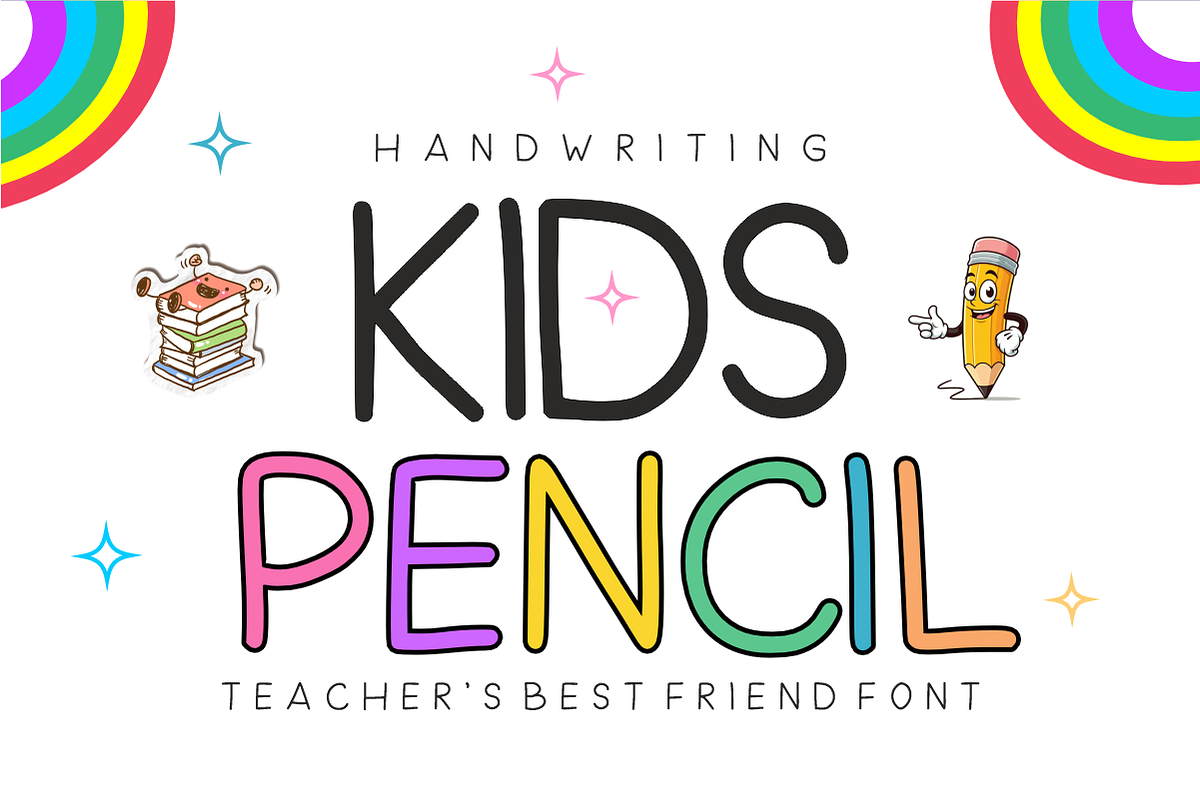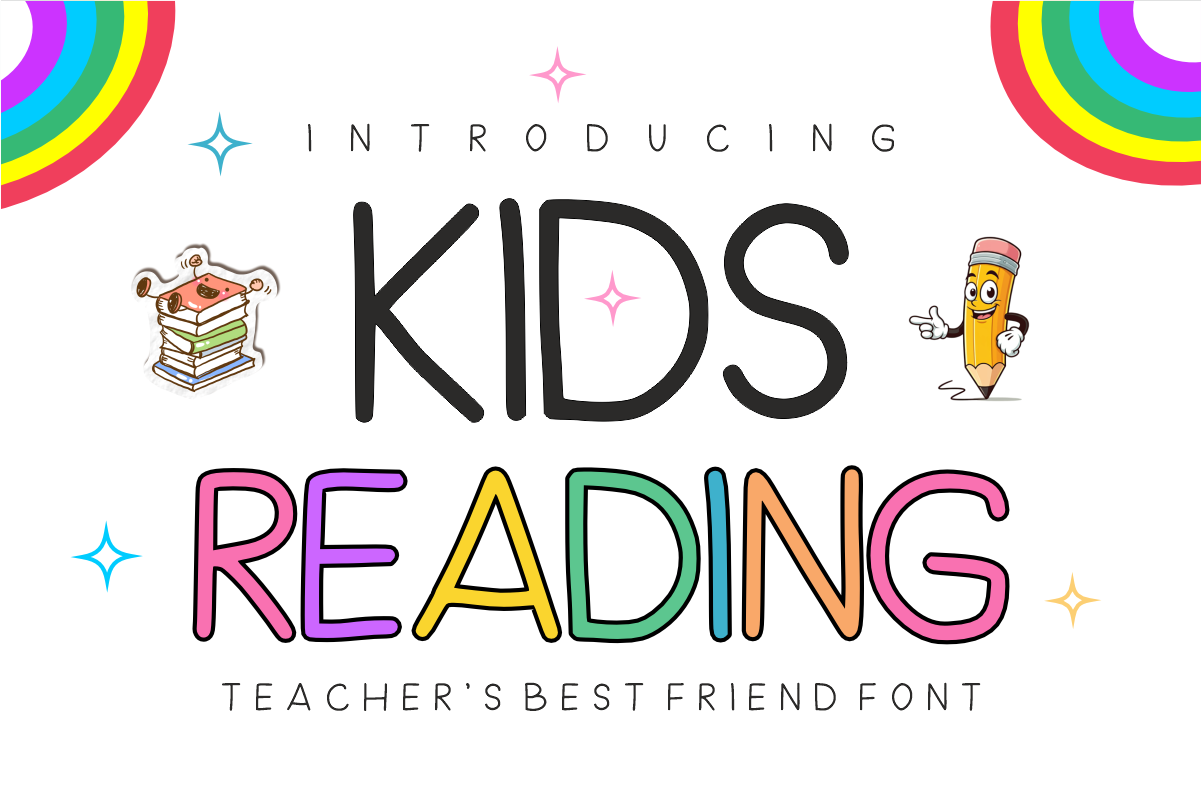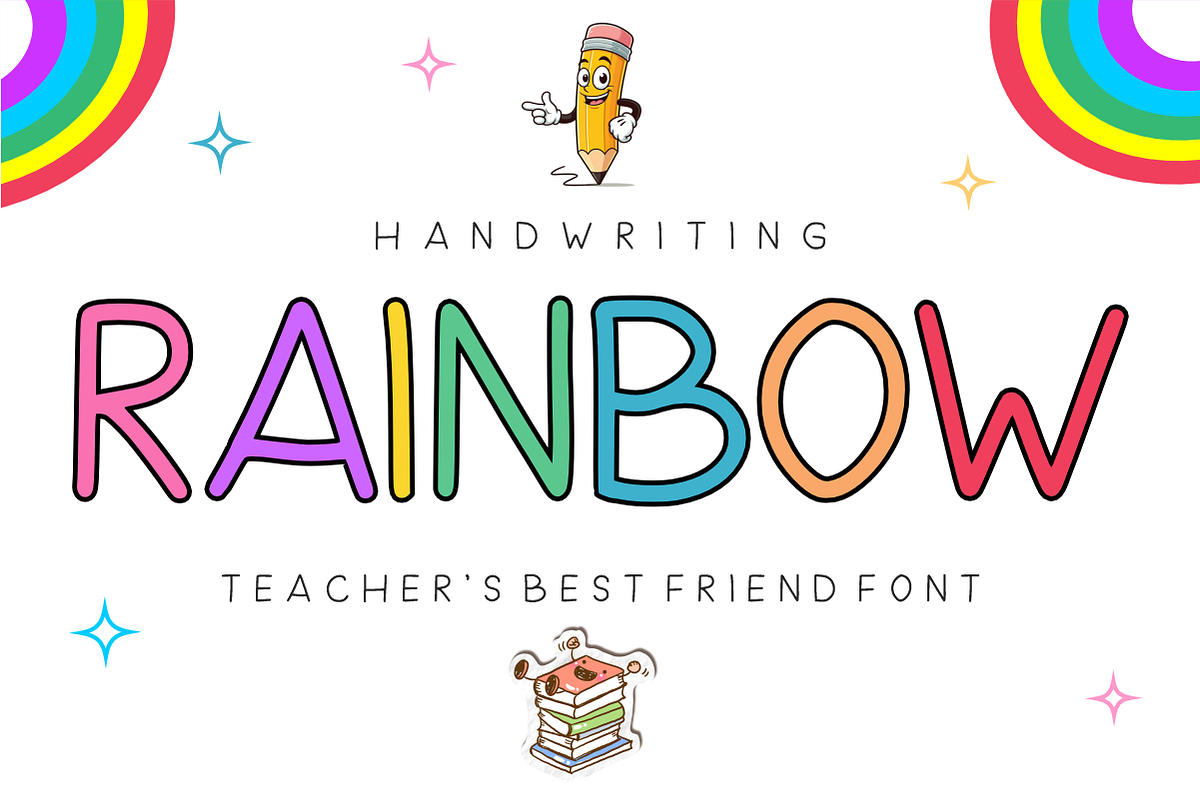
Kids Reading - School Teacher Font
Kids Reading is a tall, friendly, and clean handwritten display font crafted especially for educators, storytellers, and children's content creators. Featuring highly legible, handcrafted letterforms with a charming hand-drawn feel, this versatile font makes learning fun and reading engaging for young minds. Every character is cleanly vectorized to guarantee high-resolution prints and smooth, effortless cutting on Cricut and Silhouette machines.